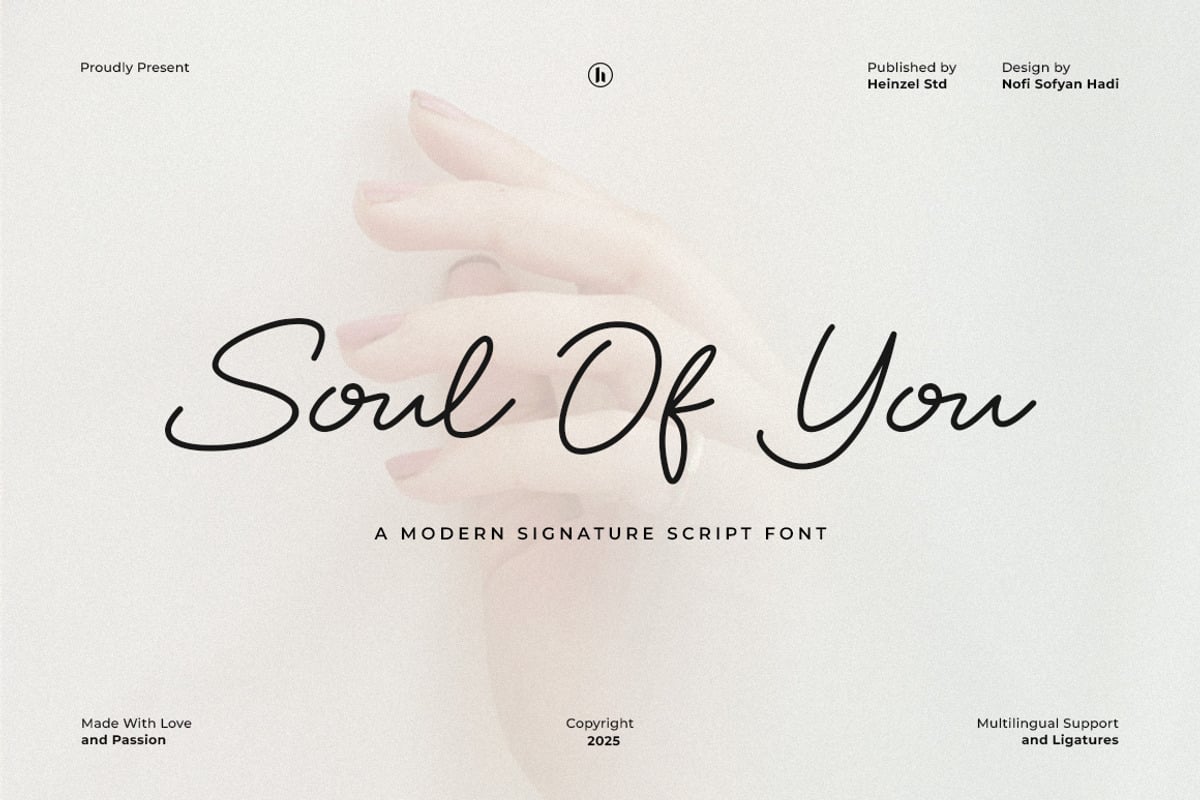
Soul Of You Modern Script Font
Soul Of You is the elegant modern script font that makes every design feel personal, polished, and unforgettable.
With its distinctly handwritten character and timeless style, Soul Of You is built for projects that demand a touch of sophistication. Whether you're crafting wedding invitations, thank you cards, greeting cards, logos, or business cards, this typeface delivers a stunning, authentic handwritten aesthetic that elevates any layout.
Font Features:
- Ligatures for natural, flowing letterforms
- Multilingual support across 21 languages